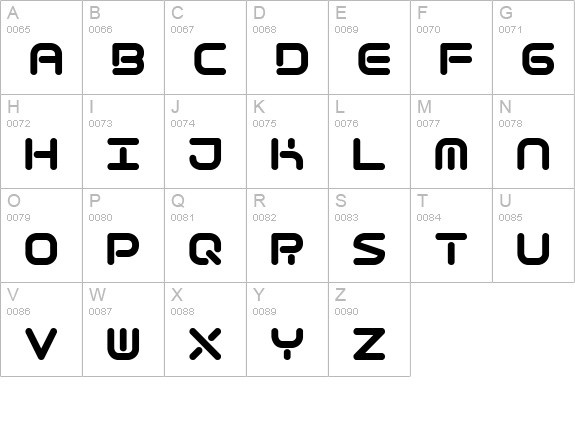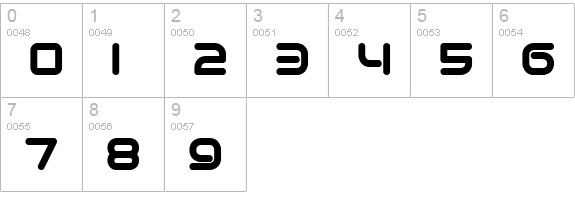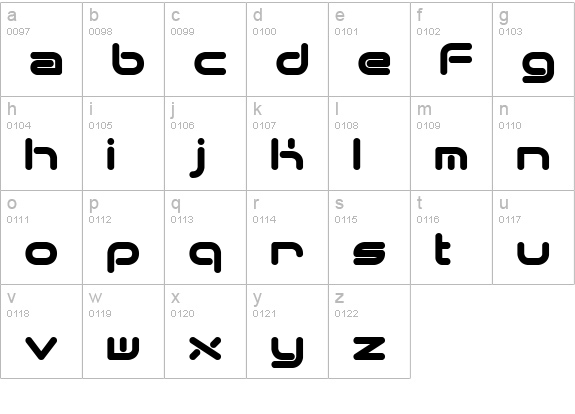
Quantum Round (BRK) font is an exceptional display typeface that truly captures the essence of modernity and innovation. With its sleek and rounded letterforms, this font exudes a sense of elegance and sophistication. Designed with precision and attention to detail, Quantum Round (BRK) font is perfect for creating eye-catching headlines, logos, and branding materials. Its clean lines and smooth curves give it a contemporary feel that is both versatile and engaging. What makes Quantum Round (BRK) font even more impressive is that it is freely available to download at FontsMarket.com. This means that you can easily access this incredible font without any cost. Whether you are a professional designer looking to enhance your creative projects or an amateur enthusiast searching for a unique font for personal use, Quantum Round (BRK) font is the ideal choice. With its extensive character set, Quantum Round (BRK) font offers support for multiple languages, making it a practical and inclusive option for global design projects. Its legibility and readability ensure that your message will be conveyed effectively, no matter the context. So why wait? Take advantage of the opportunity to download Quantum Round (BRK) font for free at FontsMarket.com and start creating visually stunning designs that will leave a lasting impression. With its modern aesthetic and effortless charm, this font is sure to elevate your creative endeavors to new heights.